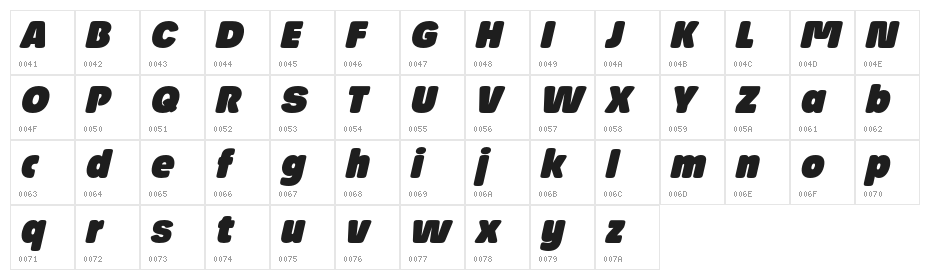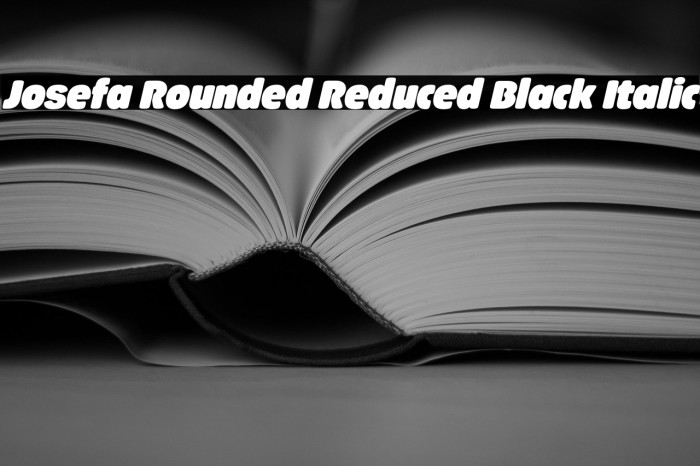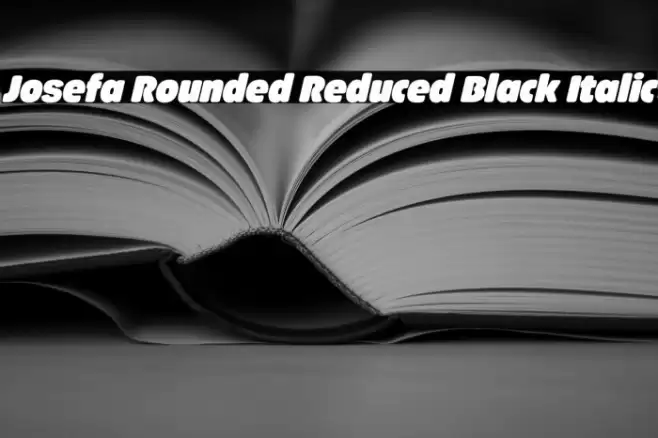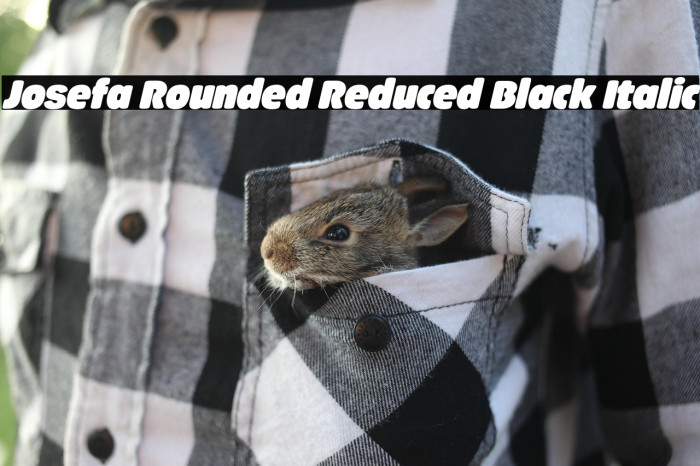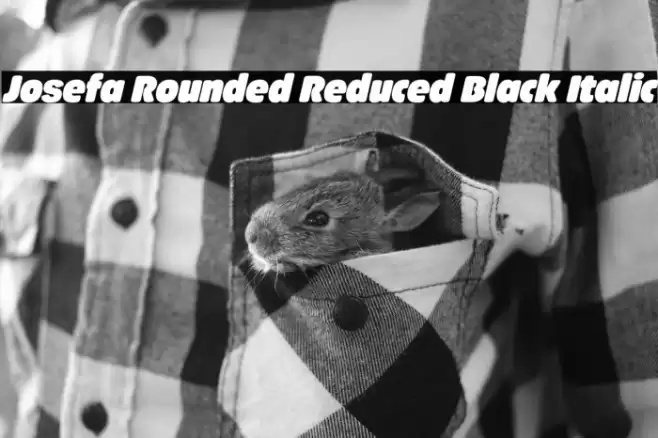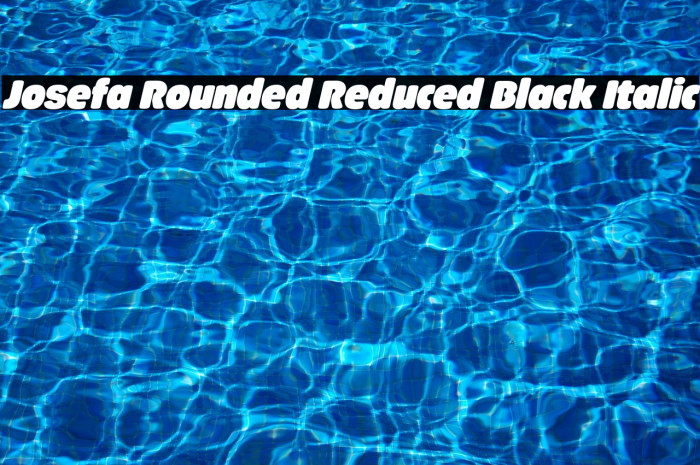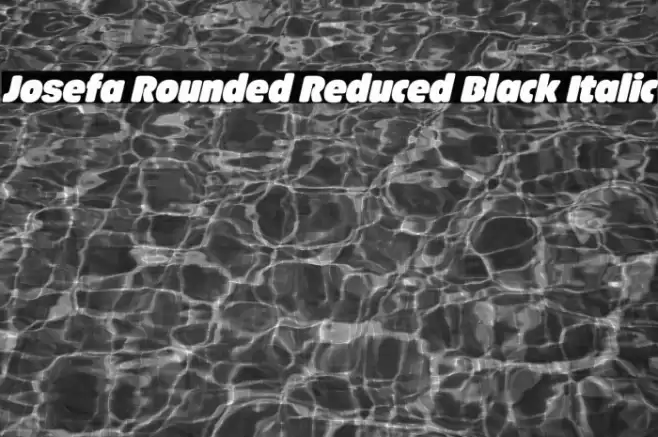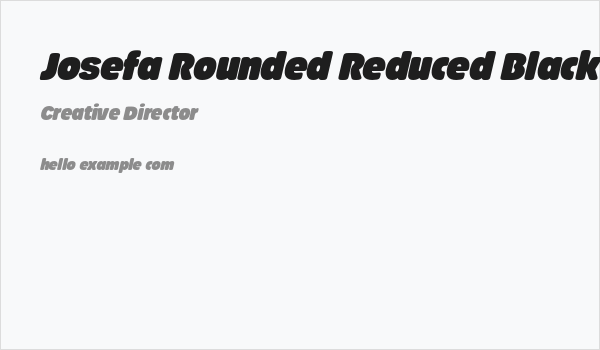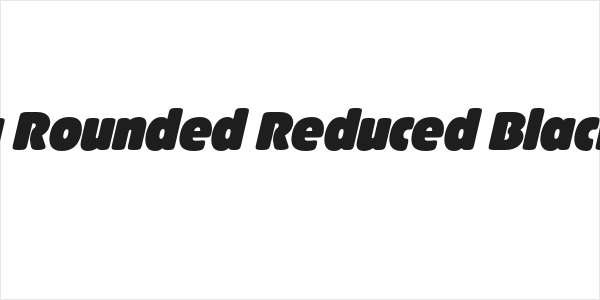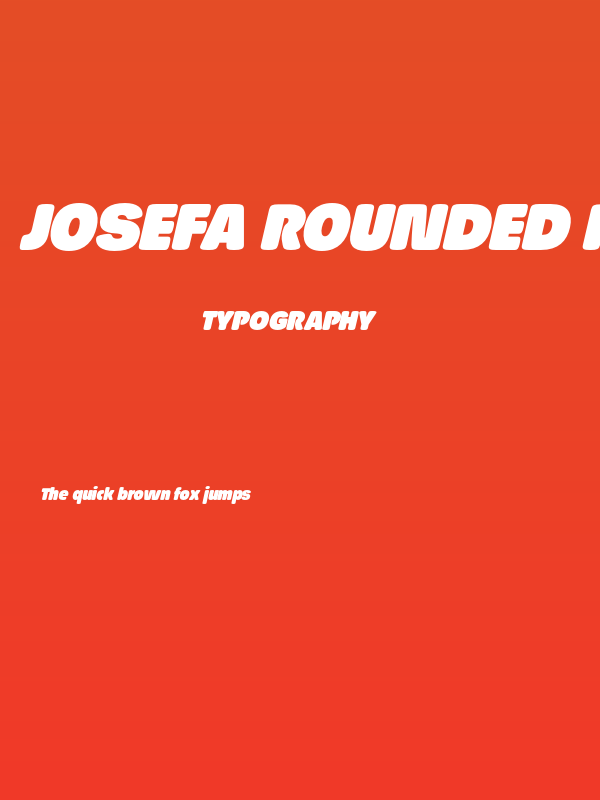
Josefa Rounded Reduced Black Italic Font
Josefa Rounded Reduced Black Italic Description
This font features a bold and rounded style with a distinct italic slant, giving it a dynamic and playful appearance. The characters are thick and robust, with smooth curves and a consistent stroke width that enhances readability. The rounded edges soften the overall look, making it approachable and friendly. Its boldness ensures that it stands out, while the italic angle adds a sense of movement and energy. This combination of features makes it suitable for a variety of creative applications where a strong yet approachable presence is desired.
| Proposed Projects | Ideal for branding, advertising, headlines, and packaging design where a bold and friendly impression is needed. |